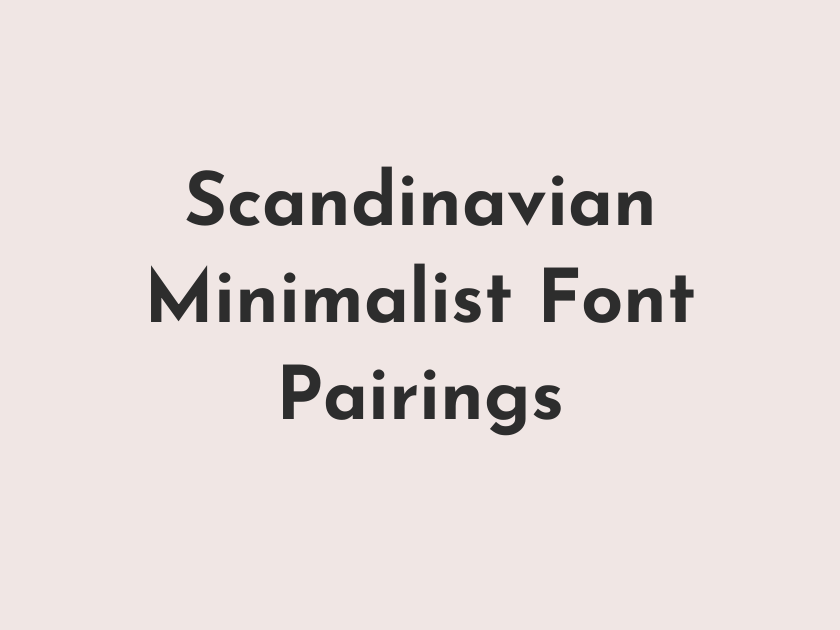
34 Scandinavian Minimalist Font Pairings
Scandinavian minimalism in type mirrors the region’s approach to interiors and product design: generous negative space, honest structure, and a preference for restraint over ornament. The pairings below draw from Google Fonts families that share that sensibility, whether through geometric clarity, soft humanist warmth, or the understated elegance of a well-cut serif. Each combination balances a distinct heading font with a body font built for long, comfortable reading, the kind of font pairing that suits branding, editorial layouts, and interior design websites alike.
1. Josefin Sans + Karla
Josefin Sans carries a geometric, almost art deco-inspired structure that still reads as understated at large sizes, while Karla’s slightly rounded terminals keep body text warm and legible. Both fonts share a narrow stroke contrast that feels distinctly Nordic in its restraint.
2. Space Grotesk + Work Sans
This pairing leans into the technical, engineered feel common in Scandinavian product branding. Space Grotesk’s quirky details work as an accent at display size, and Work Sans disappears into clean, readable paragraphs underneath.
3. Syne + Inter
Syne’s asymmetric weight distribution gives headlines real character, a useful contrast against Inter’s neutrality. This is a strong choice for design studio sites where the logotype needs personality but the interface text needs to stay invisible.
4. DM Serif Display + DM Sans
Because these two fonts were drawn as a coordinated superfamily, their proportions and x-heights align naturally. The serif display adds a touch of editorial warmth while the sans keeps everything else calm and orderly.
5. Fraunces + Public Sans
Fraunces has a soft, almost hand-finished quality in its curves, which softens the otherwise rigid grid typical of Scandinavian layouts. Public Sans, built for government and civic use, provides a sturdy and completely unfussy body text.
6. Bricolage Grotesque + Manrope
Bricolage Grotesque’s slight irregularities give it warmth without sacrificing a grid-based, architectural feel, and Manrope’s clean geometry keeps paragraphs orderly beneath it. Well suited to design agencies and product studios chasing a modern Nordic identity.
7. Schibsted Grotesk + Newsreader
Schibsted Grotesk was developed for a Norwegian media house, so its Nordic pedigree is literal, not just stylistic. Pairing it with Newsreader’s gentle serif curves creates a masthead-like contrast that suits editorial and journal-style sites.
8. Unbounded + Sora
Unbounded’s rounded geometric caps make a confident, sculptural headline, and Sora’s low-contrast letterforms keep the reading experience calm underneath. This combination fits interior architecture portfolios that want one bold visual statement per page.
9. Playfair Display + Jost
A lighter weight of Playfair Display trades drama for refinement, which suits the restrained luxury found in Nordic design. Jost’s geometric skeleton, inspired by early twentieth-century sans faces, complements that history without competing for attention.
10. Cormorant + Nunito Sans
Cormorant’s delicate, high-contrast strokes bring a literary elegance to headlines, balanced by Nunito Sans’s soft, rounded body text. The pairing works well for boutique hospitality or wellness brands with a Scandinavian aesthetic.
11. Libre Caslon Display + Mulish
Libre Caslon Display keeps the historical warmth of Caslon while trimming it down for modern display use, and Mulish offers a spare, low-key body text that never distracts. A dependable choice for design journals and minimalist blogs.
Tips for pairing fonts in a Scandinavian minimalist style
Favor generous line height and wide margins over decorative type choices; whitespace does much of the aesthetic work in this style.
Limit yourself to one display font and one text font per project, and let weight and size, not additional typefaces, carry the hierarchy.
When in doubt, choose the plainer of two options for body text; Scandinavian design trusts function over embellishment.